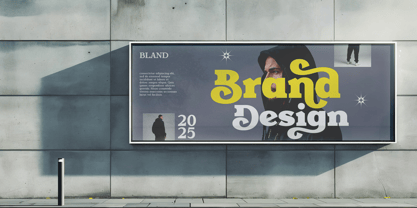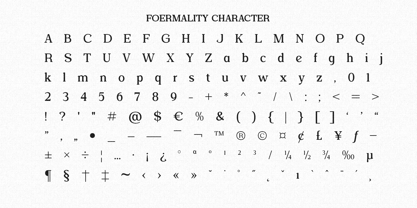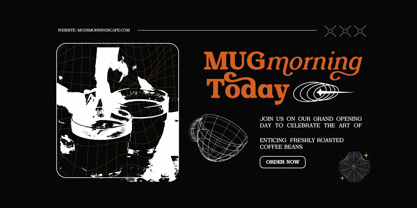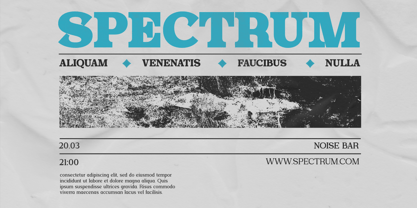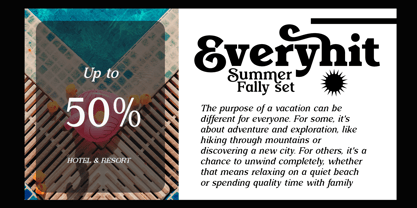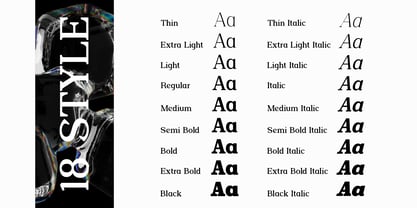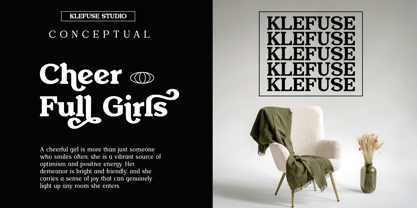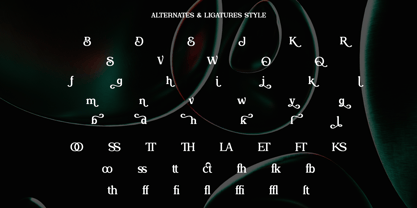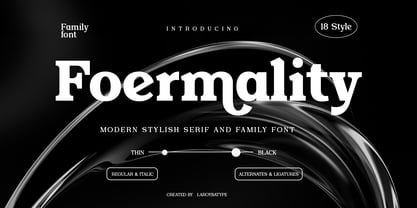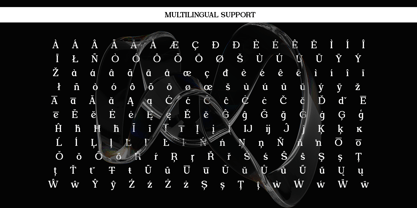
Foermality Serif
by Laroyba Type
The Foermality Serif Font Family was designed by Habib Abdur Rofi and published by Laroyba Type. Foermality Serif contains 18 styles and family package options. More about this family
✨ Foermality – Modern Stylish Serif Font Family (18 Styles) ✨ Foermality is a modern serif font designed with elegance, versatility, and style in mind. Created for designers who seek a perfect balance between classic sophistication and contemporary aesthetics, this font family brings a timeless yet modern feel to every project. Featuring 18 styles (Thin to Black, including Italics), Foermality is highly flexible and perfect for a wide range of creative needs. Its refined details and carefully crafted letterforms make it ideal for branding, logos, magazines, editorial design, packaging, posters, wedding invitations, fashion projects, websites, and social media templates. 💎 Key Features: 18 complete styles: Thin, Extra Light, Light, Regular, Medium, Semi Bold, Bold, Extra Bold, Black + Italics. Unique Alternates & Ligatures for more creative typography options. Extensive multilingual support covering over 80+ languages. Perfect for luxury branding, modern editorials, stylish headlines, and elegant logos. 🖋️ Why choose Foermality? Foermality is more than just a typeface—it’s a professional font family that elevates your design with elegance and impact. Its combination of classic charm and modern refinement makes it the ultimate choice for projects that demand premium typography.
Designers: Habib Abdur Rofi
Foundry: Laroyba Type